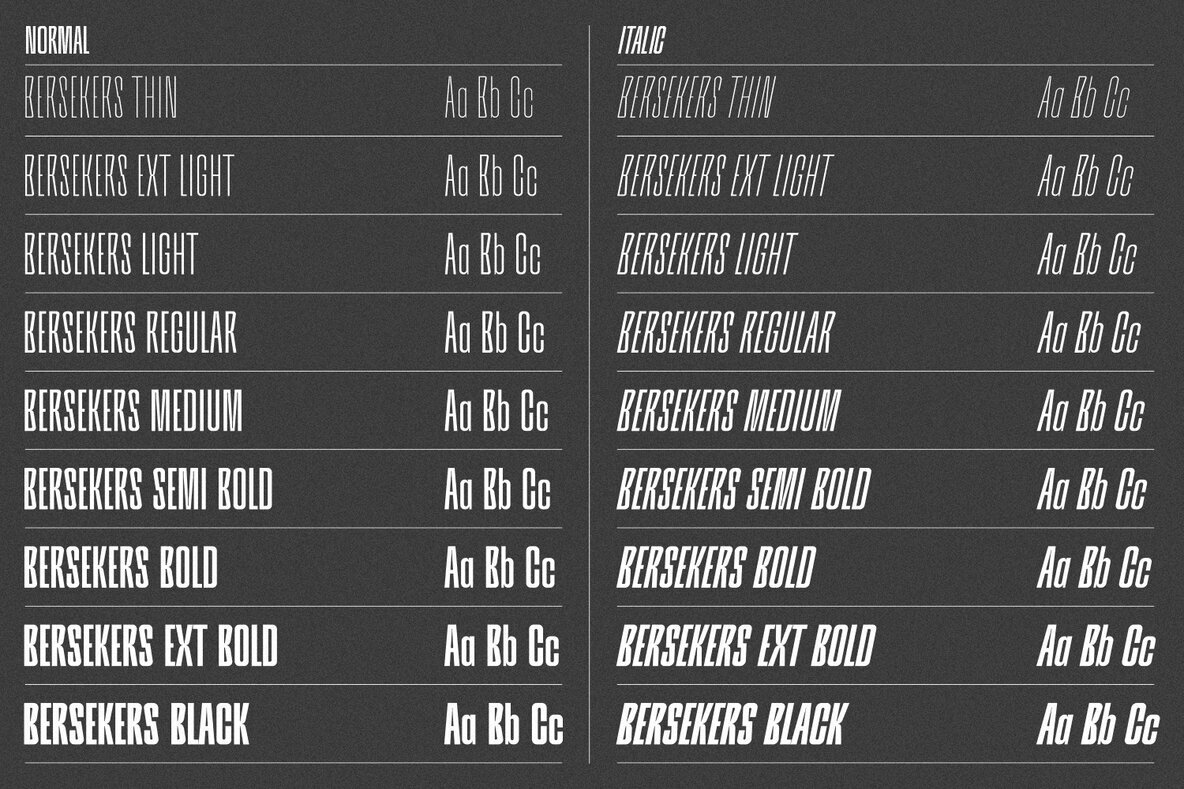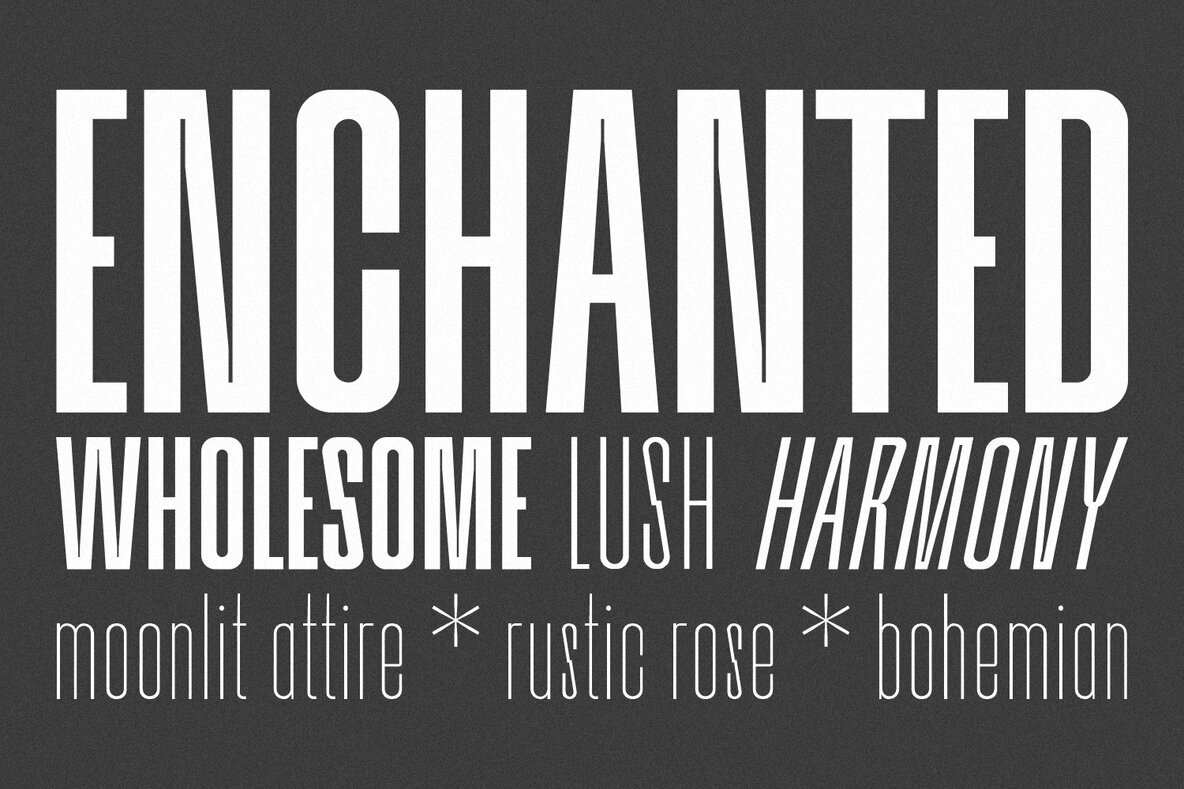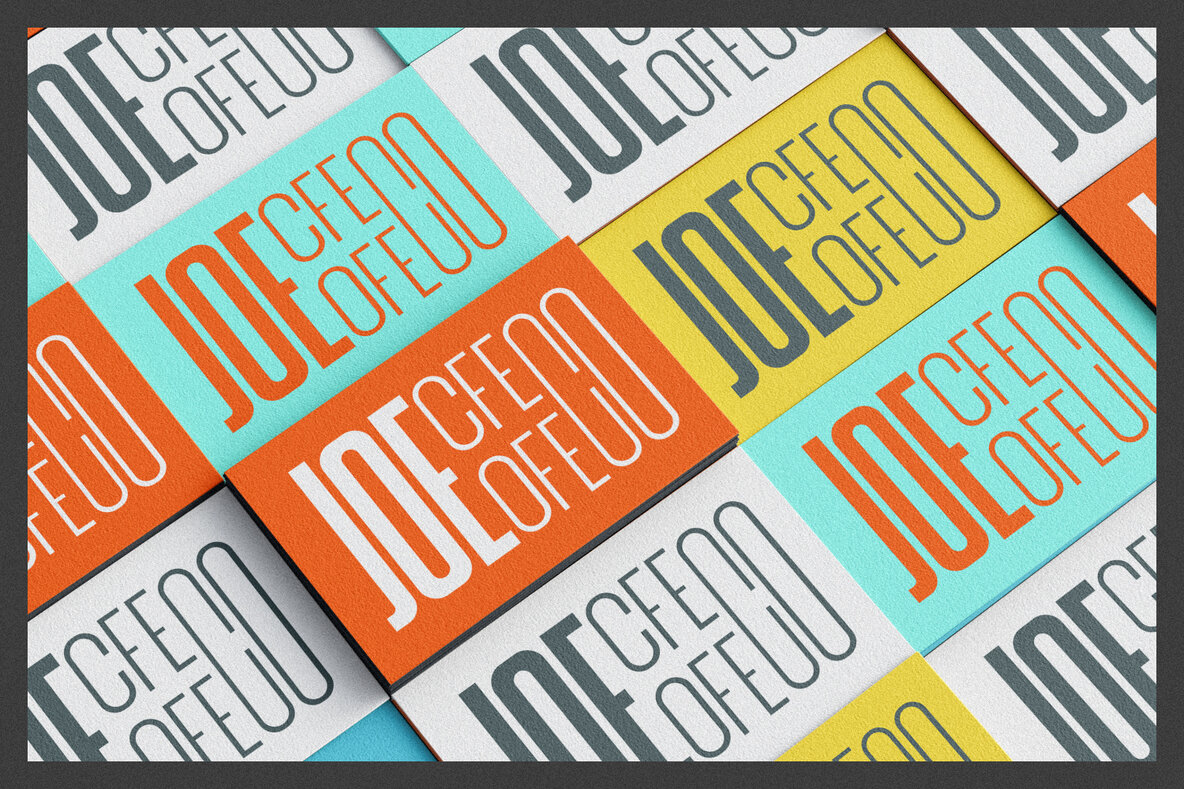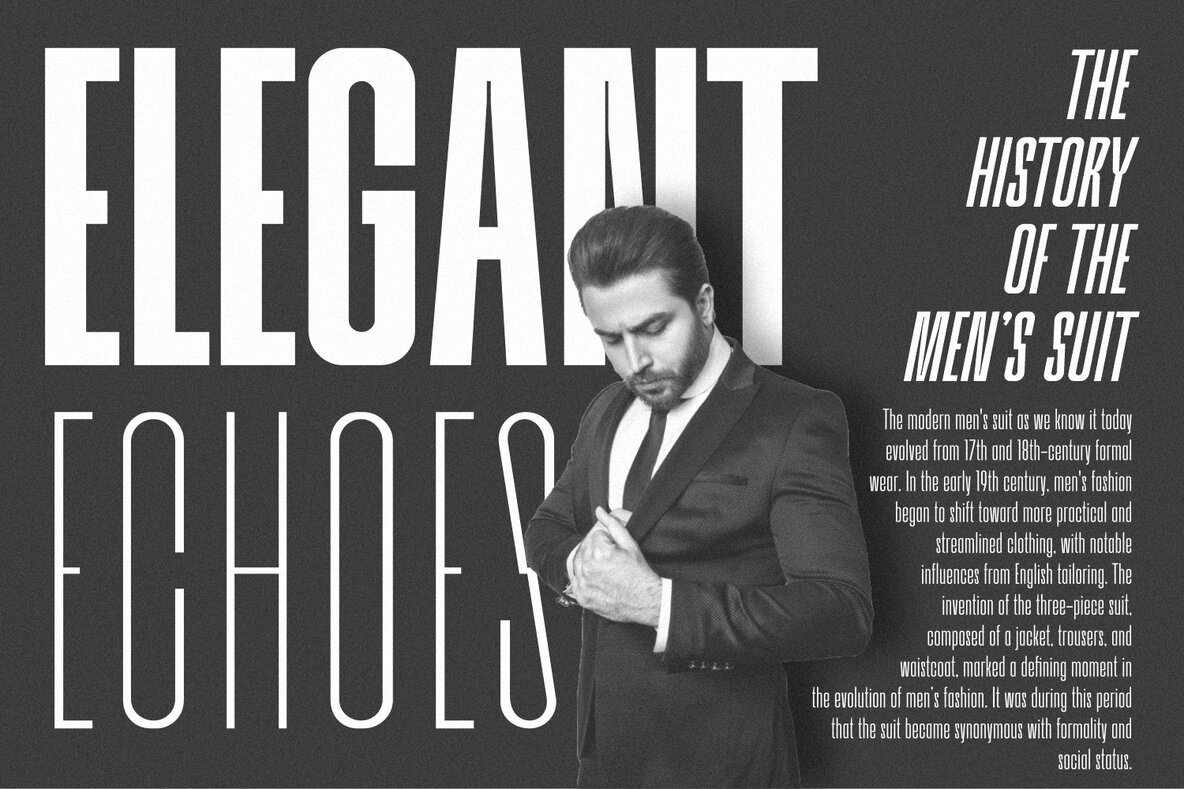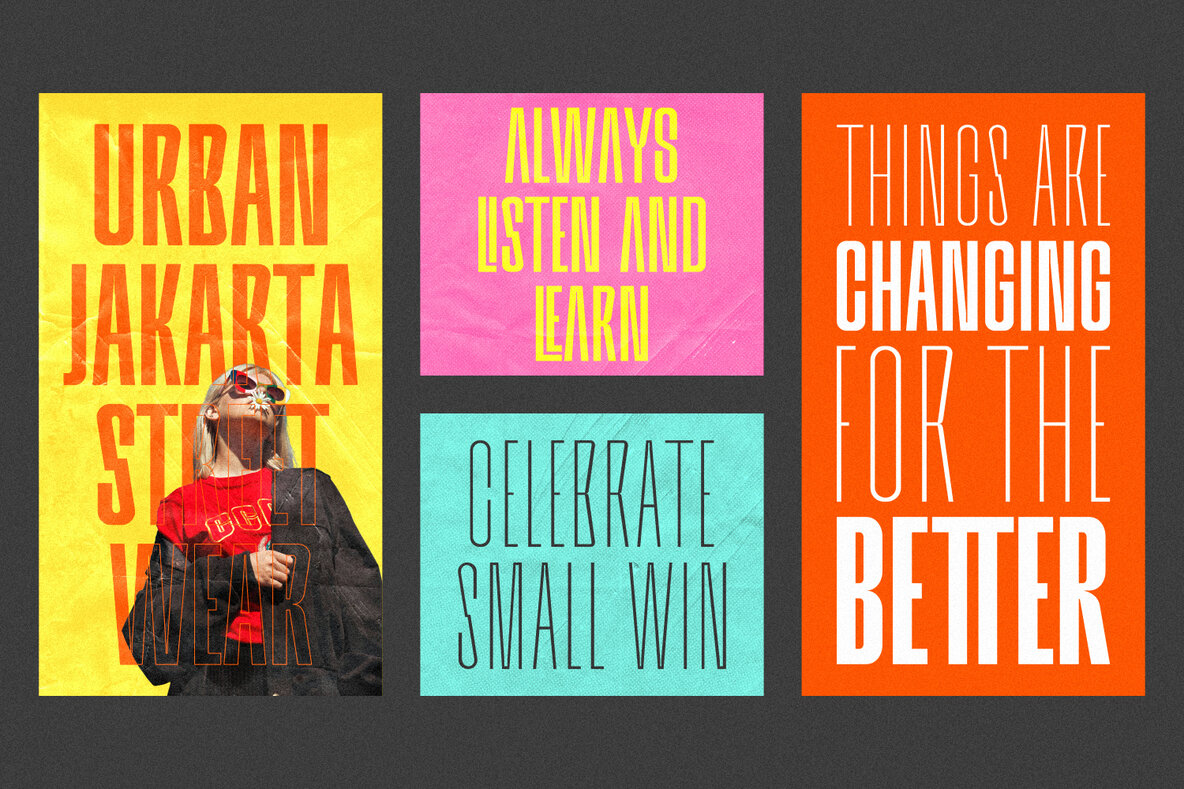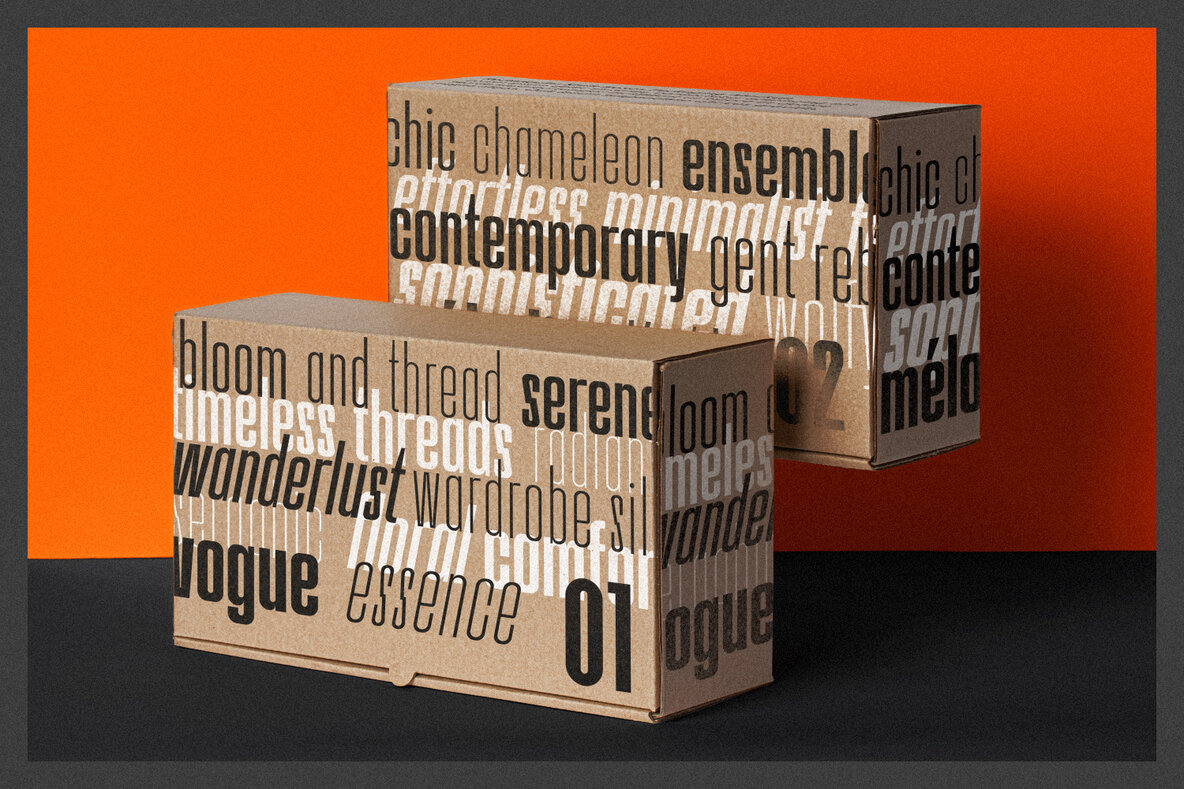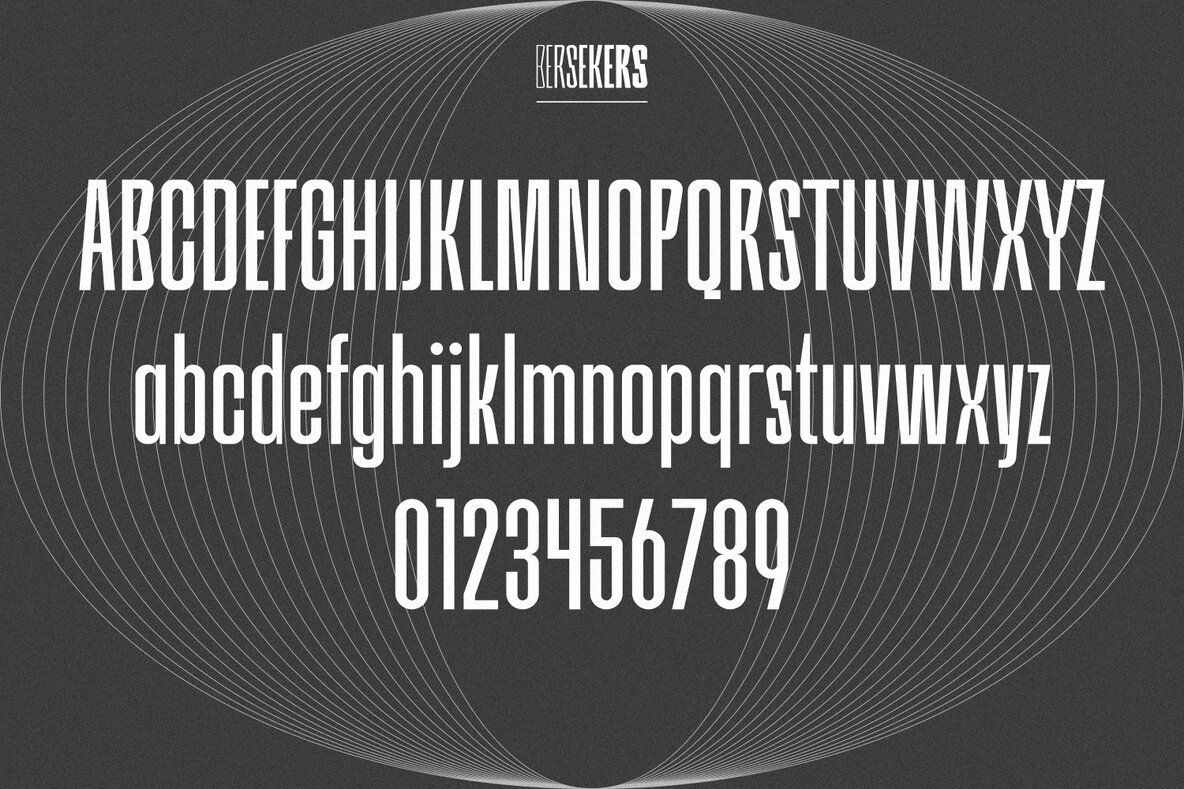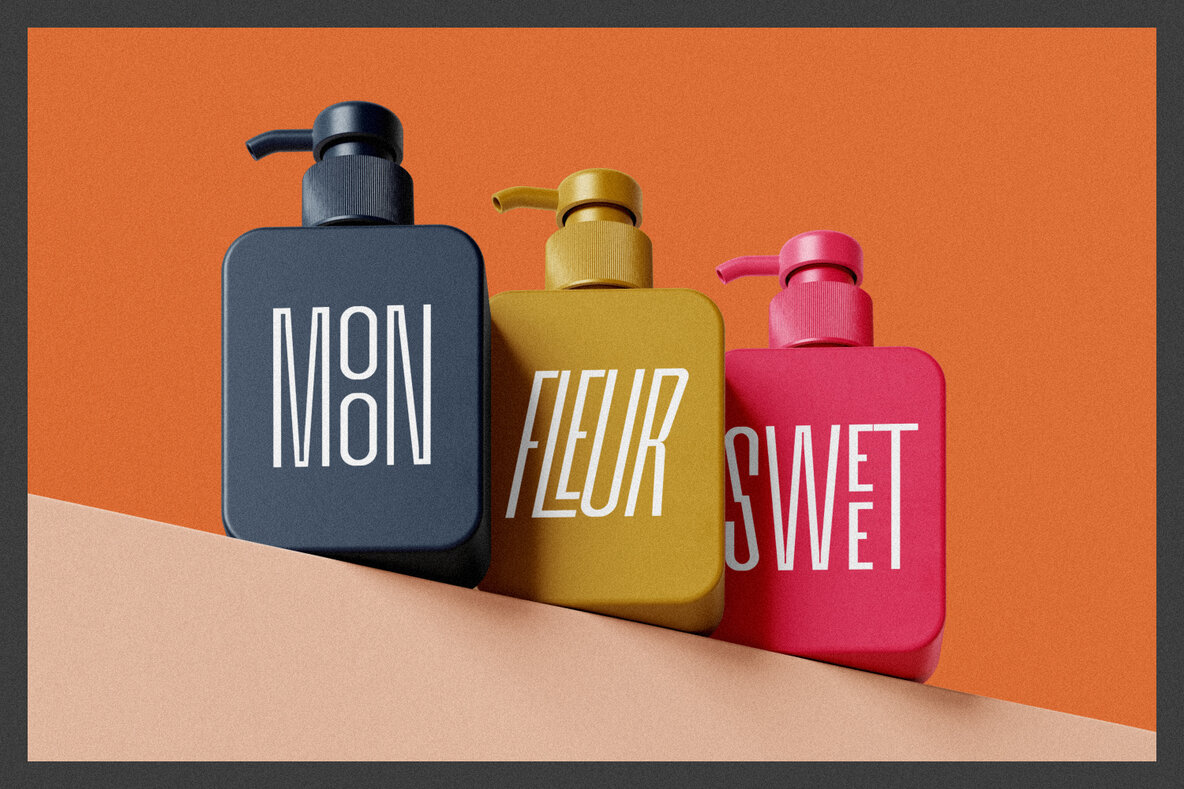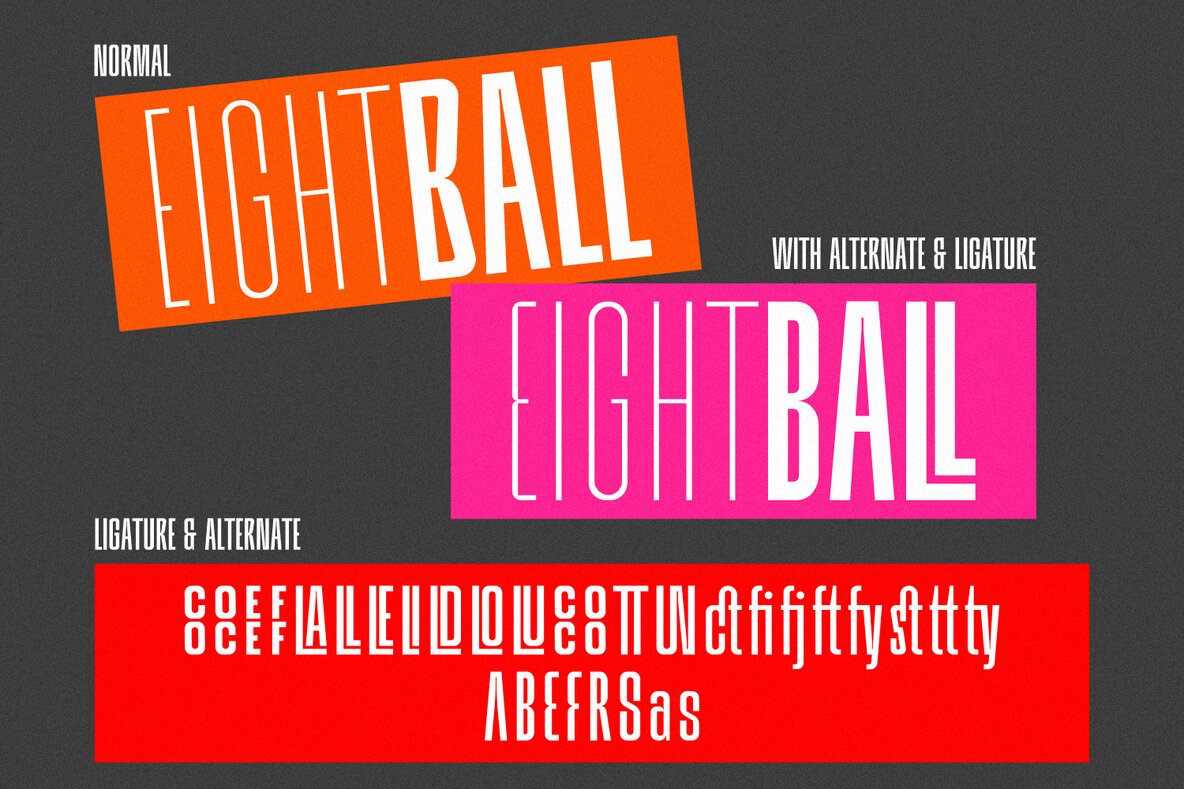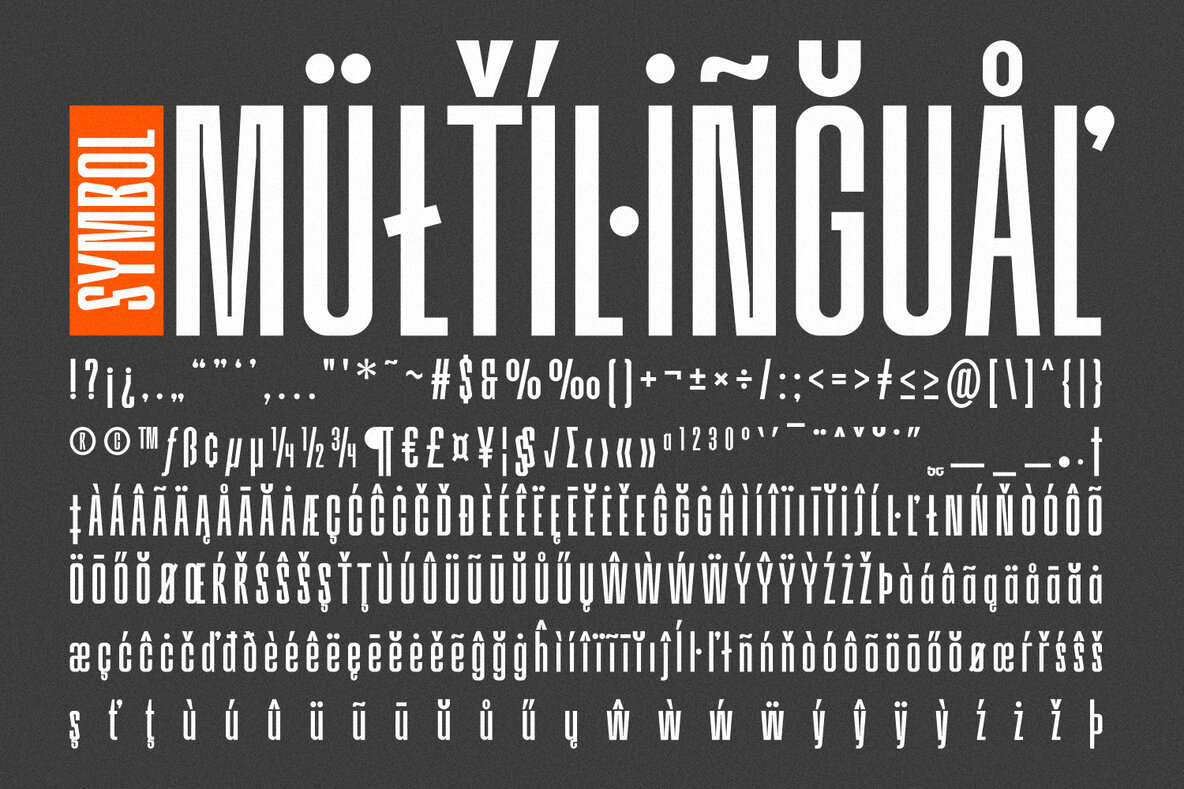
Bersekers Font
Bersekers is a modern condensed sans serif font family consisting of 9 weights over 18 normal and italic fonts. You can use it to convey the perfect design balance between modern and strong.
Bersekers is the epitome of elegance and functionality Whether you're creating headlines, logos, packaging, or web designs, this font's compact structure ensures a visually striking impact that commands attention